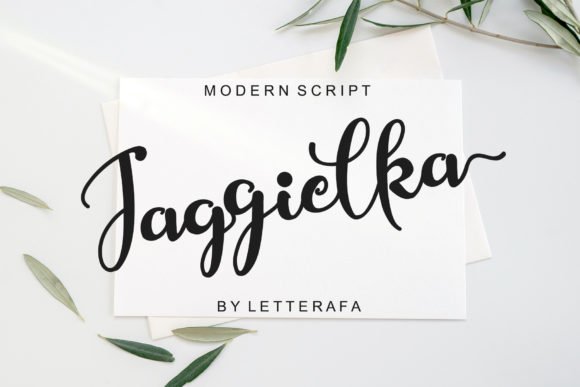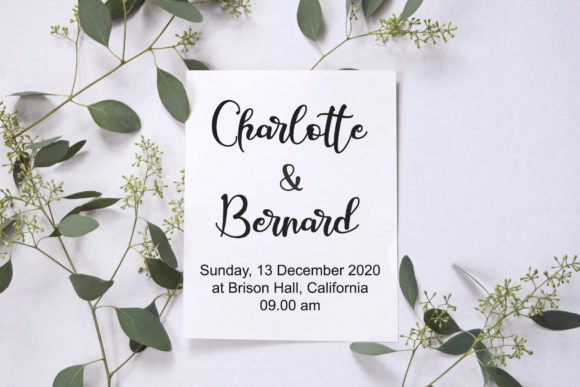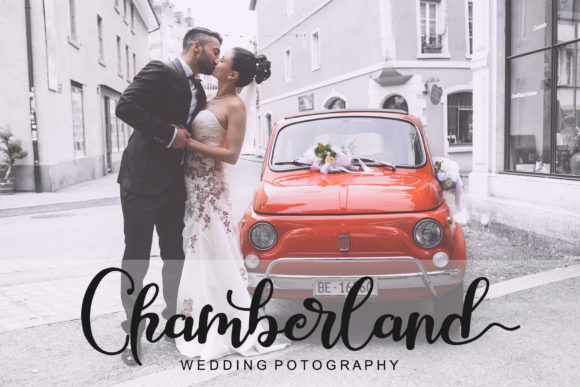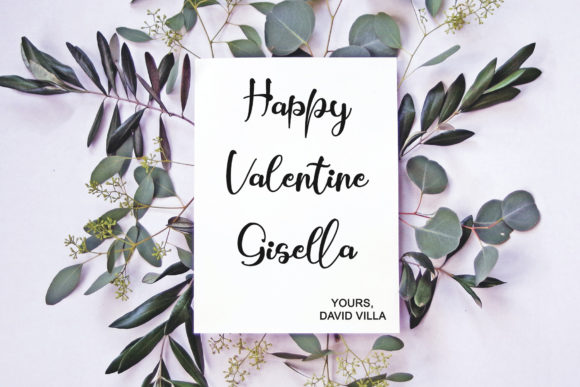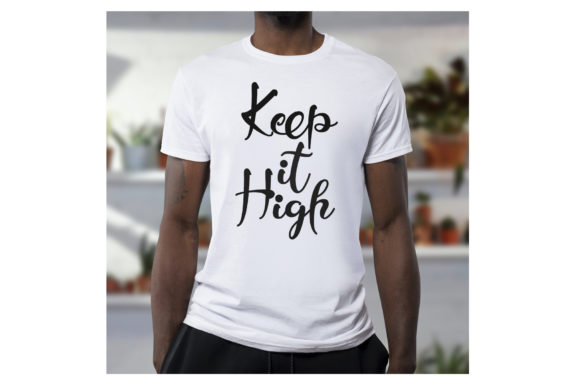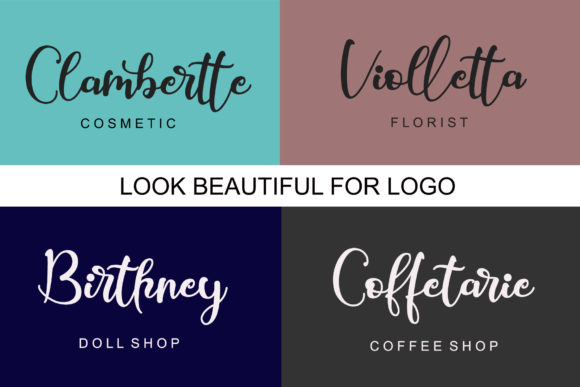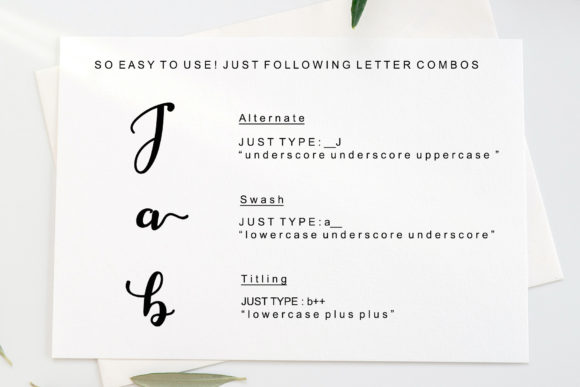
Have you ever found yourself stuck in front of a blank page, trying to come up with the perfect design for a project? The blank page stares back at you, and your mind goes blank. But then, something clicks – a script font catches your eye, and suddenly the design starts to take shape. This is exactly what happens when designers come across the Jaggielka Font.
Jaggielka Font is a beautiful calligraphy typeface designed to add a touch of elegance and sophistication to any project. Whether you’re working on a logo, wedding invitation, or t-shirt design, this font has got you covered. With its relaxed yet delicate feel, Jaggielka Font can be used for a wide range of applications, from signage to labels, and news to posters.
As a designer, you know how valuable it is to have a versatile font at your disposal. The Jaggielka Font is no exception, offering PUA encoded glyphs and swashes that make it easy to access and customize. This means you can experiment with different styles and effects without worrying about limitations.
Jaggielka Font Key Features
- Font Size: The font family includes 4 font weights (Thin, Regular, Bold, Black) and 2 font styles (Regular, Italic).
- Character Set: Jaggielka Font supports a wide range of languages, including Latin, Cyrillic, and Greek alphabets.
- Unique Characteristic: The font features a unique blend of modern and traditional design elements, making it suitable for various design applications.
Jaggielka Font Review
I recently had the chance to work with the Jaggielka Font, and I have to say, it’s a mixed bag. ✨ Here are some things that work well:
- Unique aesthetic: Jaggielka has a distinct, quirky feel that’s perfect for designers looking to add some personality to their projects.
- Good legibility: Despite its unusual design, the font is still easy to read, making it a great choice for body text or titles.
- Supports multiple languages: Jaggielka includes a wide range of language support, making it a great option for global brands or websites.
- Limited font sizes: Jaggielka starts to lose its unique charm at larger font sizes, making it less suitable for titles or headings.
- No bold or italic variations: While the font has a unique feel, it can be difficult to convey emphasis or hierarchy without bold or italic variations.
- May not be suitable for corporate brands: Jaggielka’s quirky design may not be the best fit for more traditional or conservative corporate brands.
Overall, I think Jaggielka is a great choice for designers who want to add some personality to their projects, but it may not be the best fit for every design situation.
Tips for Getting the Most Out of Jaggielka Font
Here are some tips for getting the most out of the Jaggielka font:
- Use it for titles and headings to add a touch of elegance.
- Combine it with other fonts to create a unique and interesting font combination.
- Experiment with different font sizes and styles to add depth and visual interest.
The Jaggielka font is commonly used for:
- Designing elegant and sophisticated logos.
- Creating invitations and other formal event materials.
- Designing business cards and other professional stationery.
Comparison to Jaggielka Font: While Jaggielka Font has a unique, handwritten feel, Playfair Display is more formal and sophisticated. Playfair Display is ideal for designs that require a touch of elegance and sophistication, whereas Jaggielka Font is better suited for more casual and creative projects.